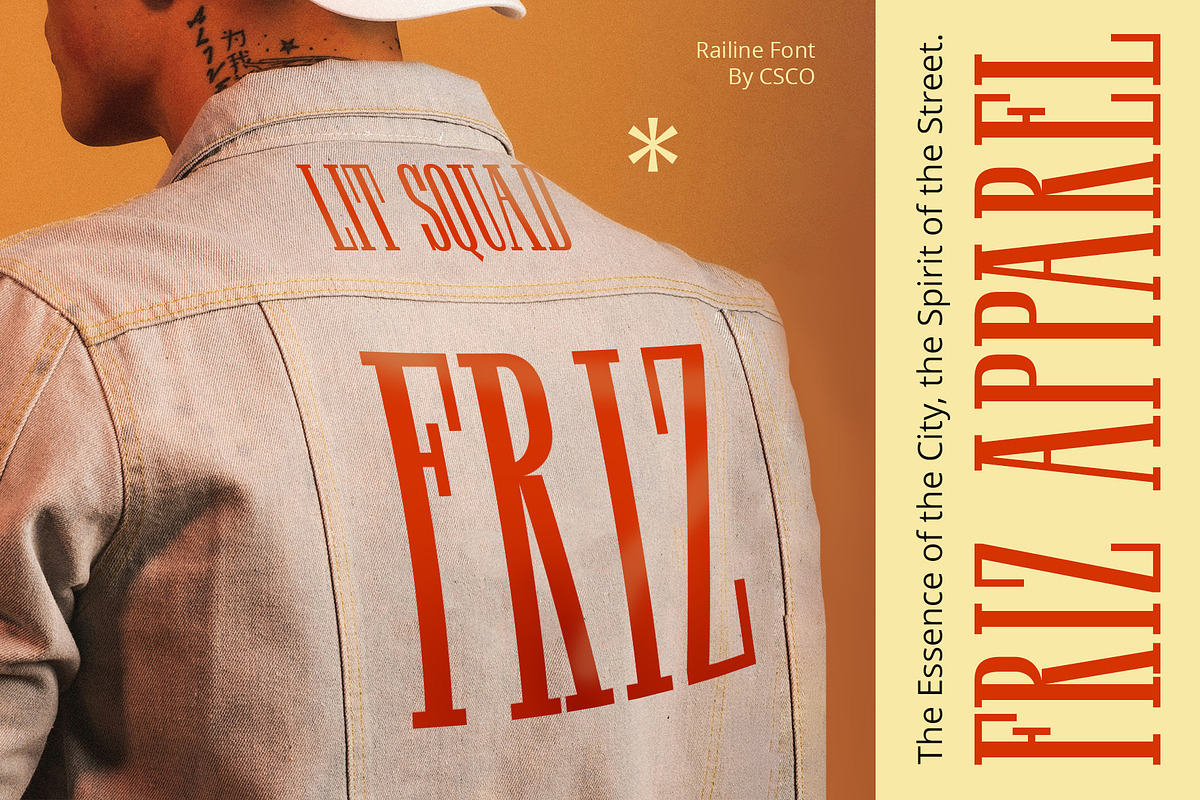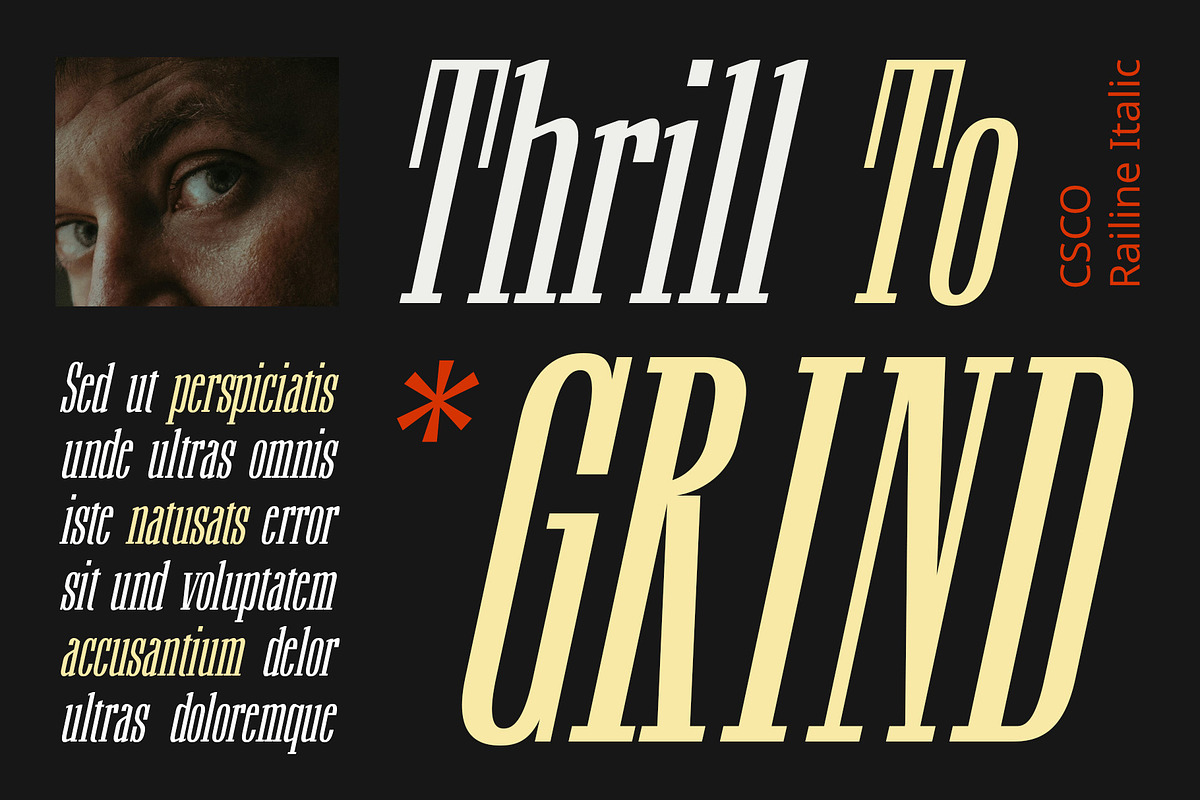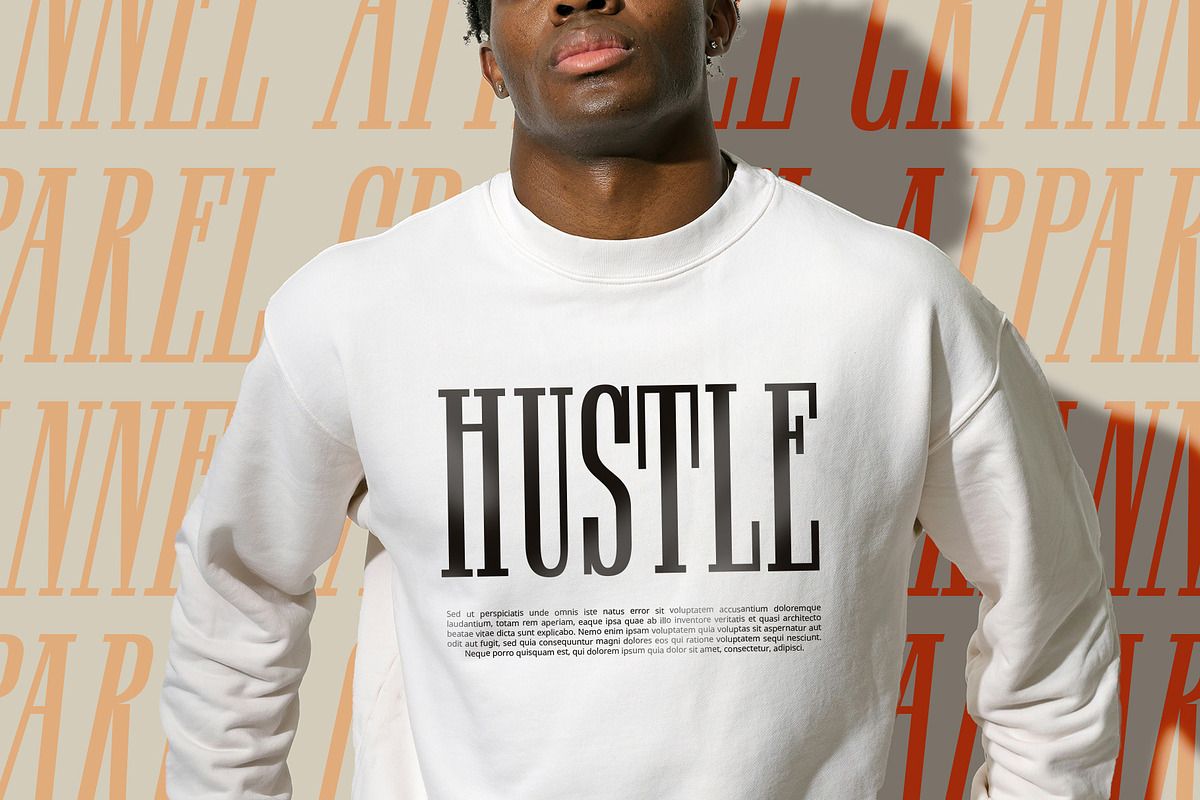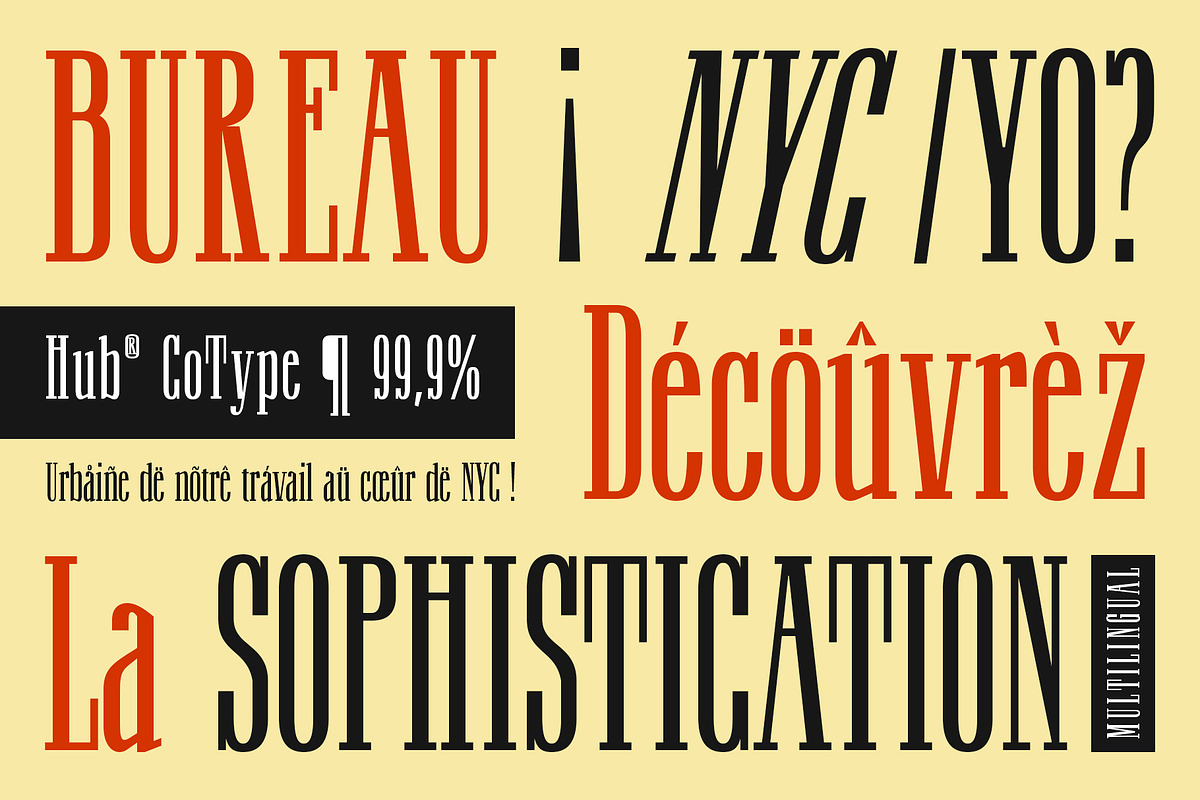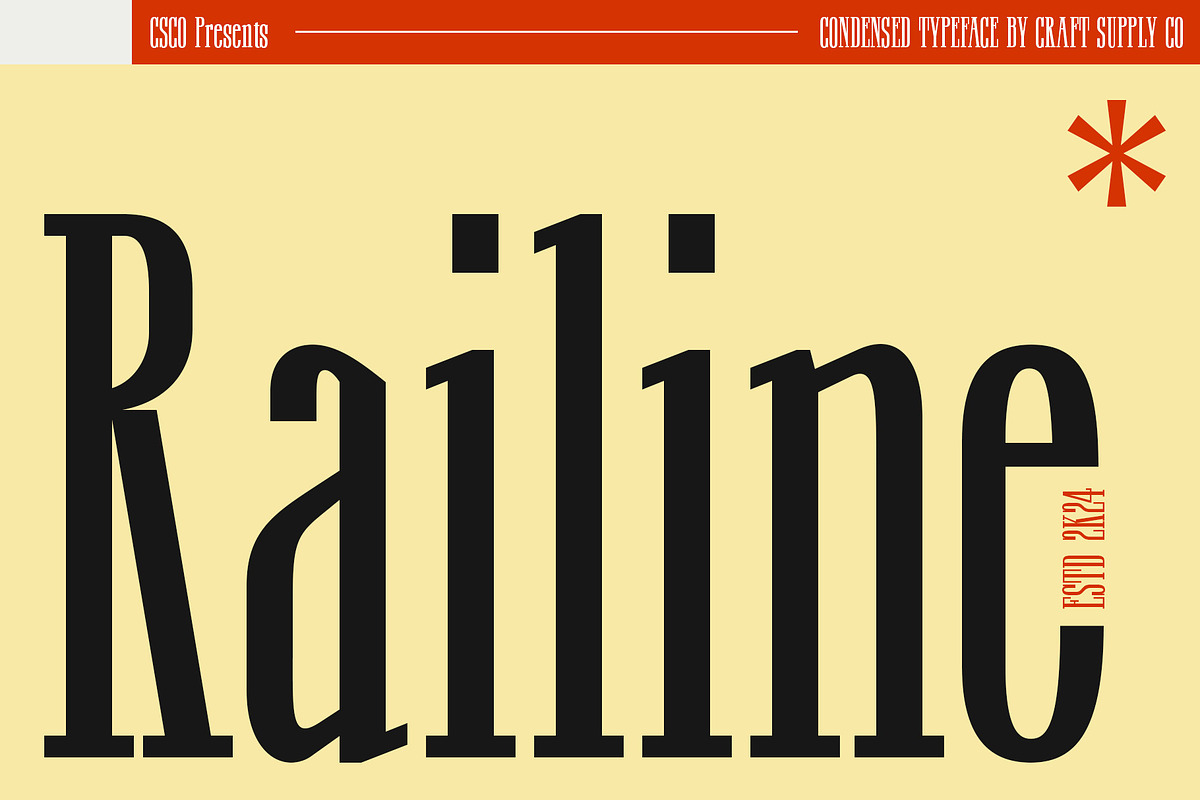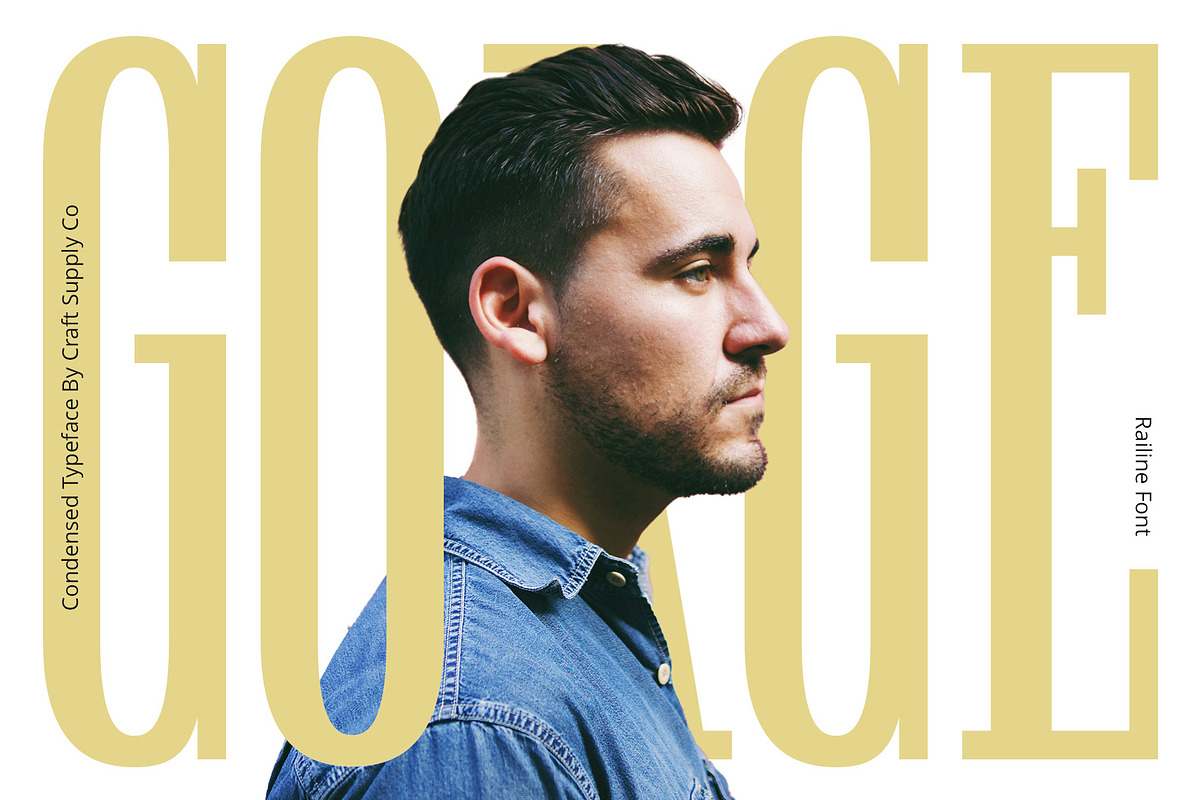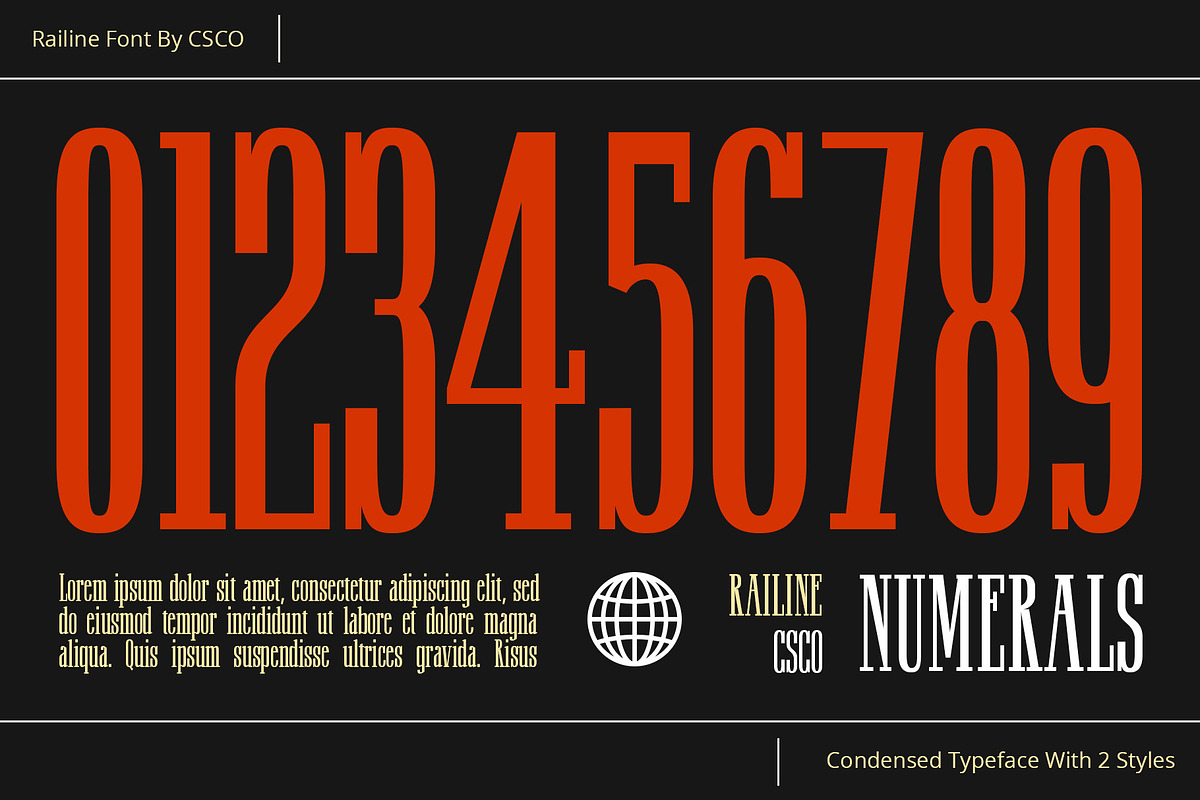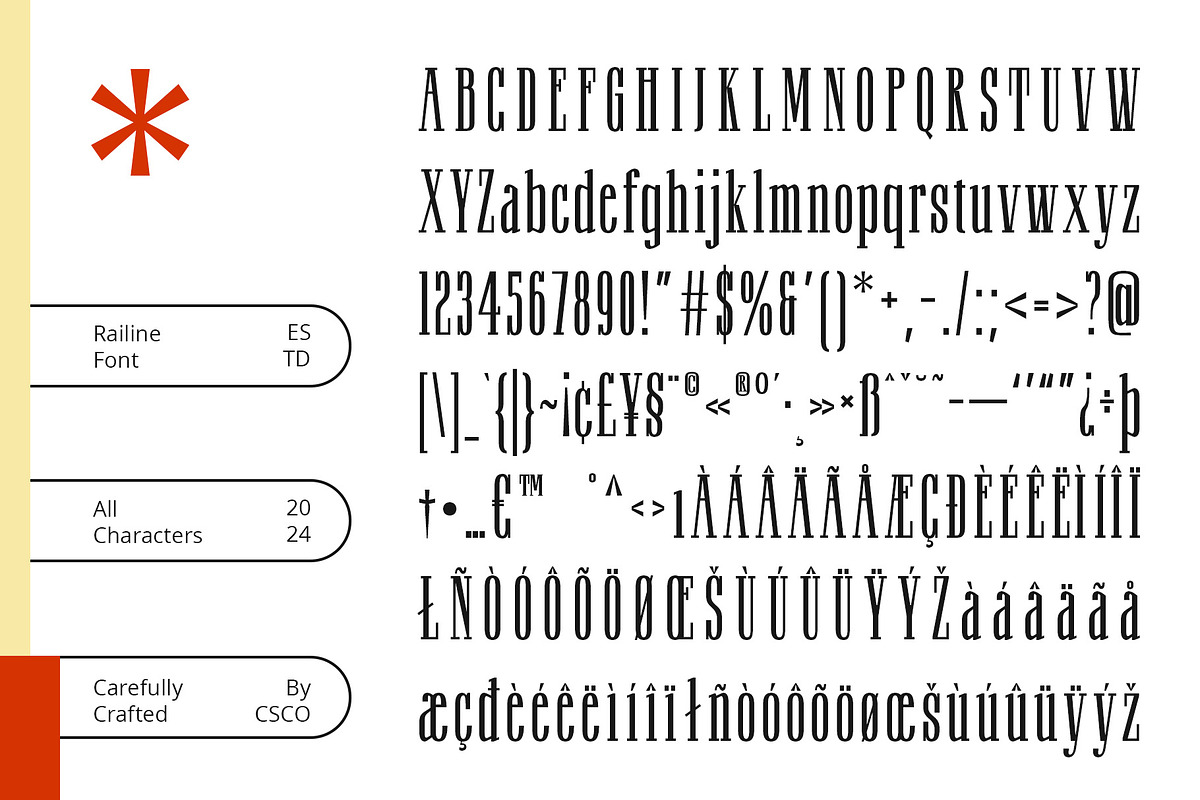
Railine – Condensed Serif
Railine – Condensed Serif: Retro Elegance Redefined
Retro Condensed Serif
Railine Font is a retro condensed serif typeface that blends vintage charm with modern elegance. Perfect for design applications that require both style and space efficiency, this font is a versatile choice for a variety of projects.
Elegant Retro Vibe
With its retro-inspired design, Railine Font adds a touch of nostalgia to your work. The elegant serif details and condensed form create a sophisticated look that is both timeless and contemporary.
Space-Saving Design
Railine Font’s condensed structure maximizes space without compromising readability. Ideal for headlines, logos, and other applications where space is at a premium, this font ensures your text stands out with clarity and style.
Versatile for Various Applications
From vintage posters to elegant branding, Railine Font offers versatility that suits a wide range of design needs. Its retro vibe and refined appearance make it perfect for everything from editorial layouts to packaging.
Add a Touch of Retro Elegance
Elevate your designs with Railine Font, where retro charm meets modern functionality. Its condensed serif style and elegant details make it an essential addition to any designer’s toolkit, providing both beauty and practicality for your creative projects.
- Railine Regular
- Railine Italic